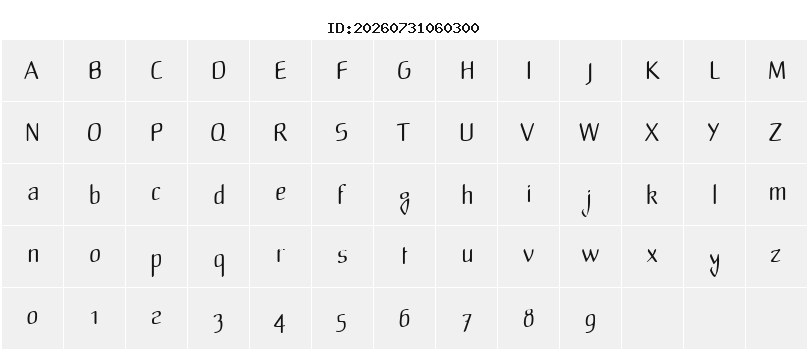
• Font Name: LTMild
• Full Font Name: Linotype Mild
• Designer: Martina Schikorski
About LTMild.ttf
LTMild.ttf is a modern, elegant sans-serif font designed for ultimate readability and visual harmony. Perfect for branding, headlines, web design, and print materials.